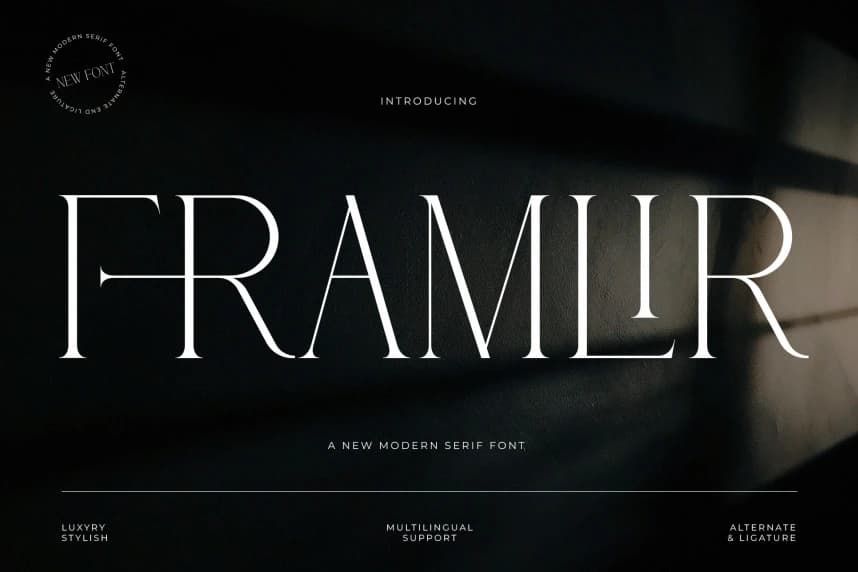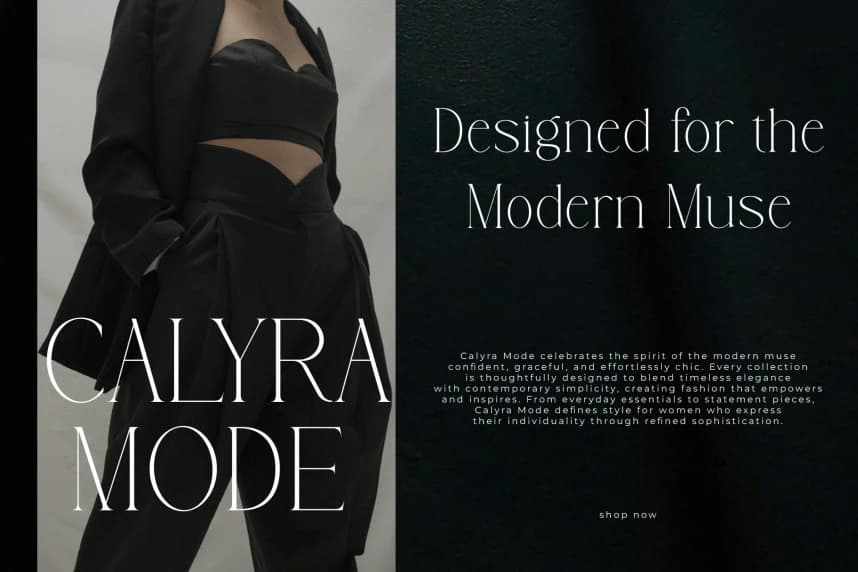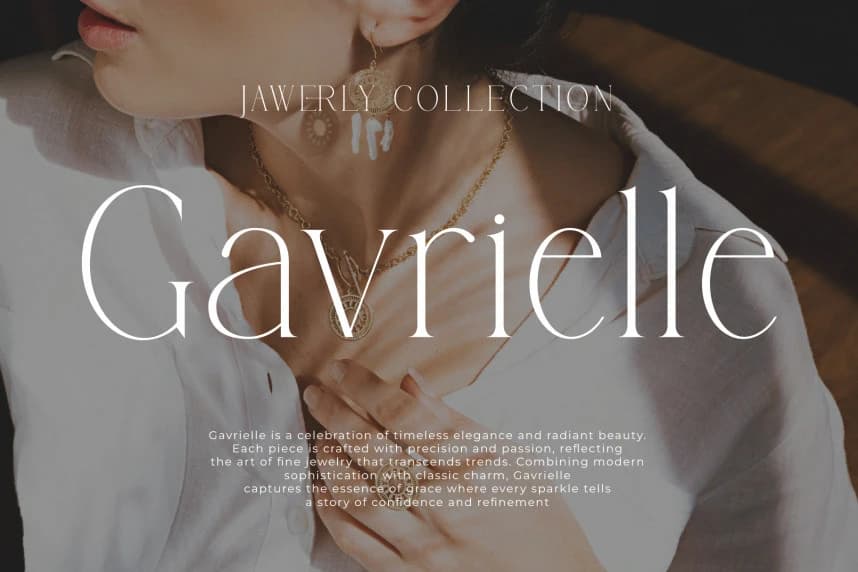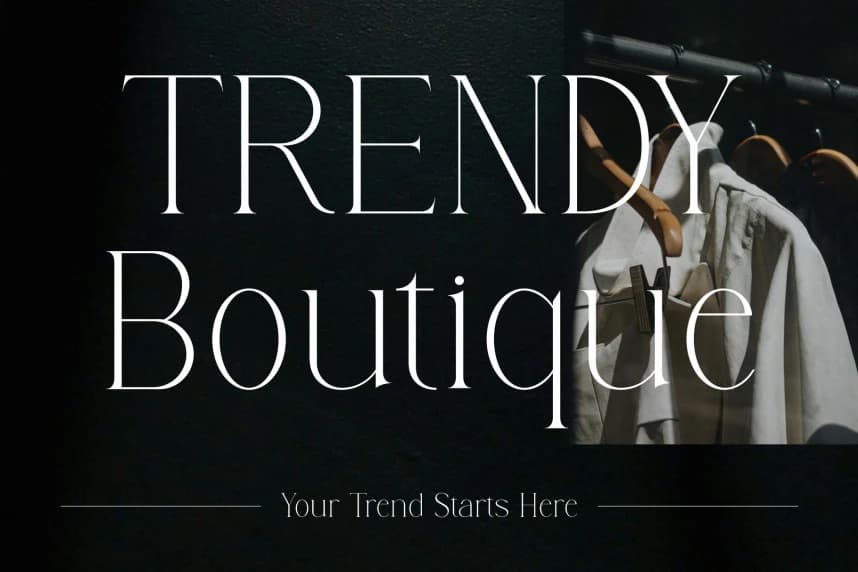
Framlir Font
Framlir Font, a cinematic display serif that captures a “luxurious-and-legendary” soul. This typeface features tall, high-contrast letterforms characterized by razor-thin hairlines, rhythmic sweeping curves, and unique ligatures that bridge the gap between classic editorial style